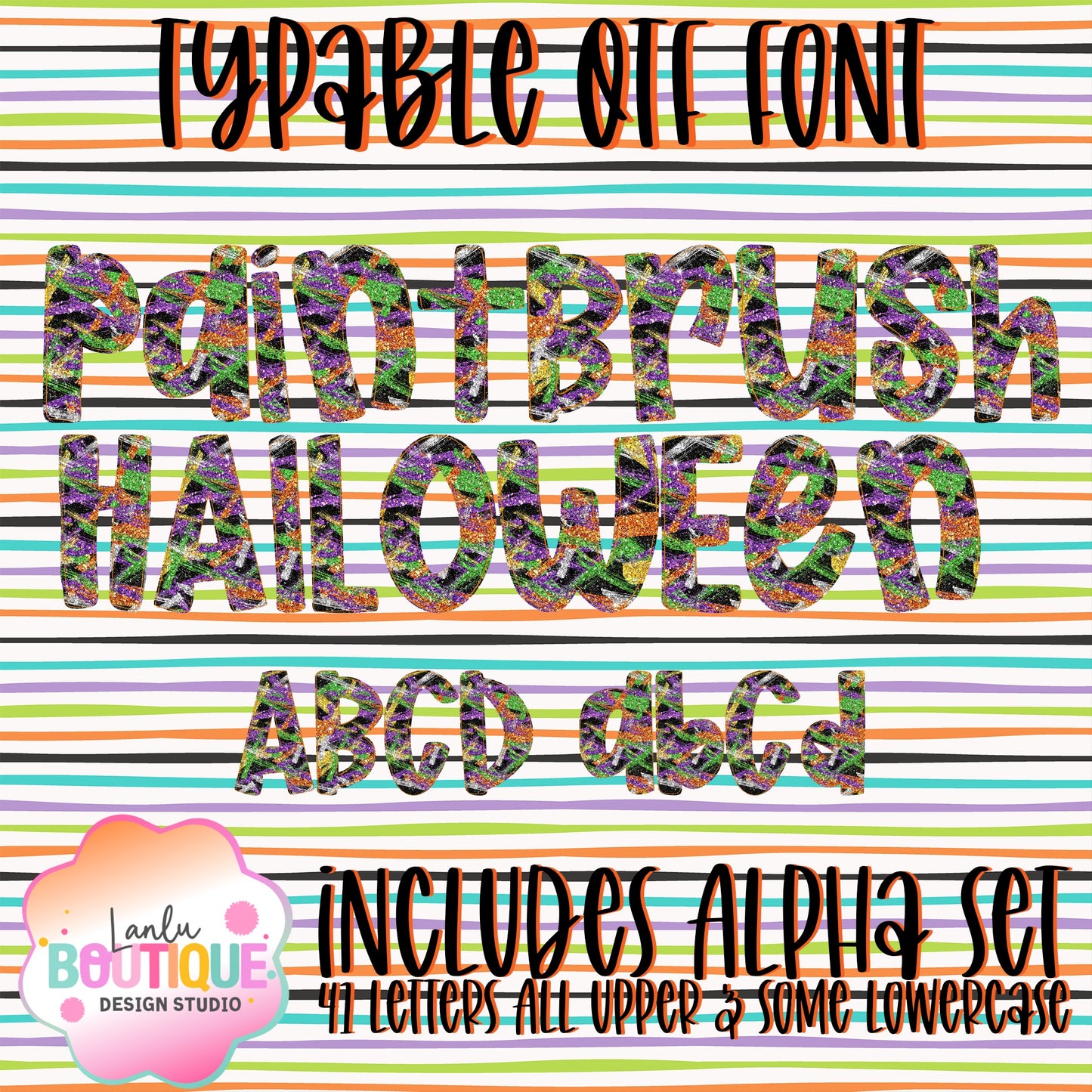
Paintbrush Halloween Glitter OTF Typable Hand drawn Font
The Paintbrush Halloween Glitter OTF font blends hand-drawn artistry with refined typability, offering a unique brushstroke style accented by a delicate glitter effect. Ideal for stylish Halloween projects, this font brings sophistication and personality to your invitations, branding, and seasonal designs.